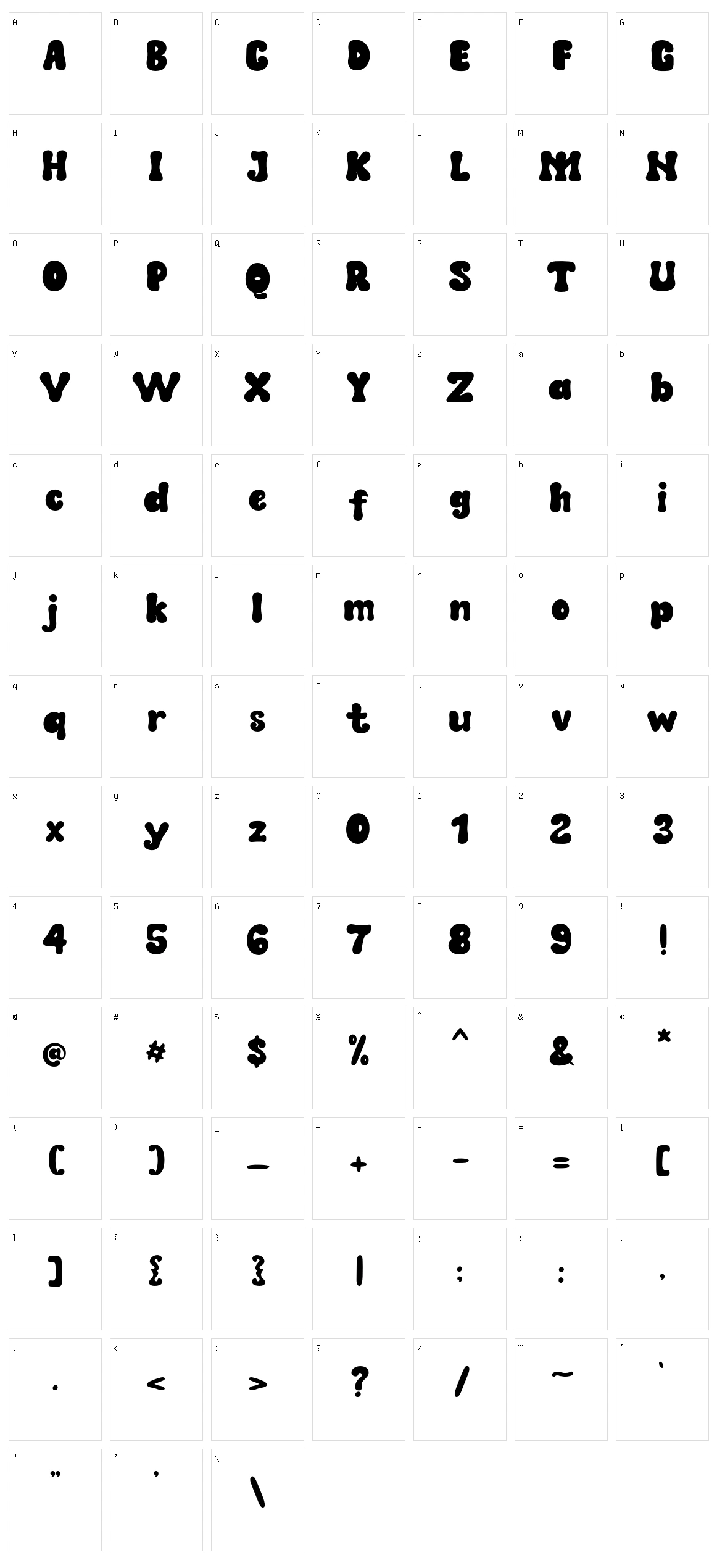
The free font Mozaquen is carefully designed by Javatype Studio, showcasing a thoughtful balance of creativity and usability and falls under the Groovy font style. When you download the ZIP file, it contains only 63.27 KB of font files, making it lightweight and quick to download. Please review the license details below to understand permitted usage and distribution rights. If license information is not available, we recommend using this font for personal projects only or contacting the author directly for commercial usage permissions.